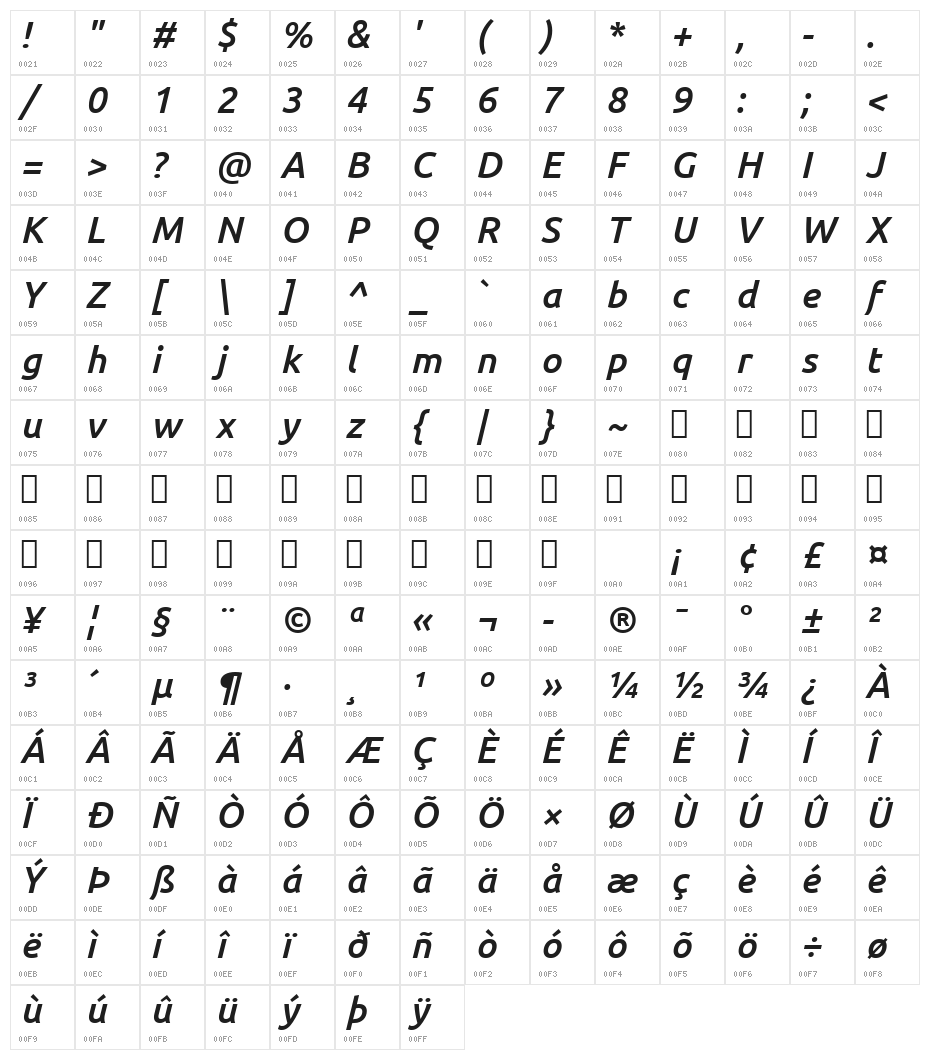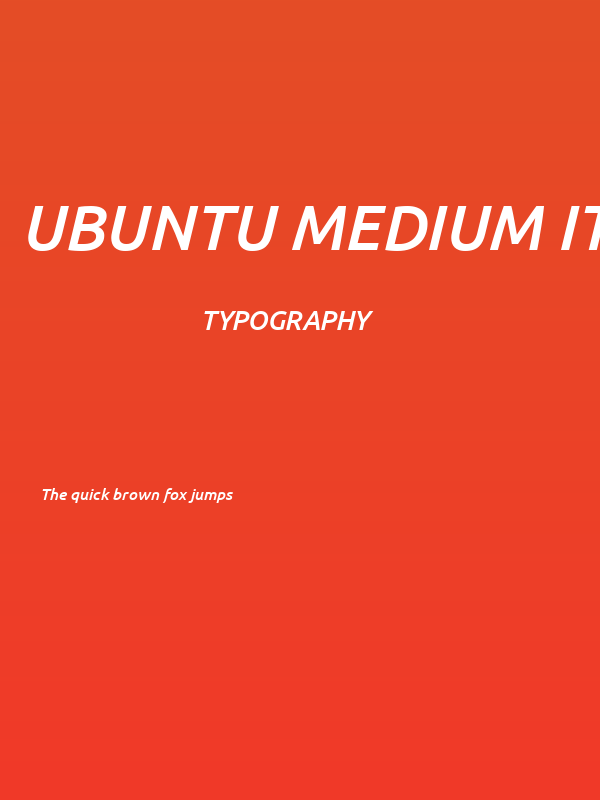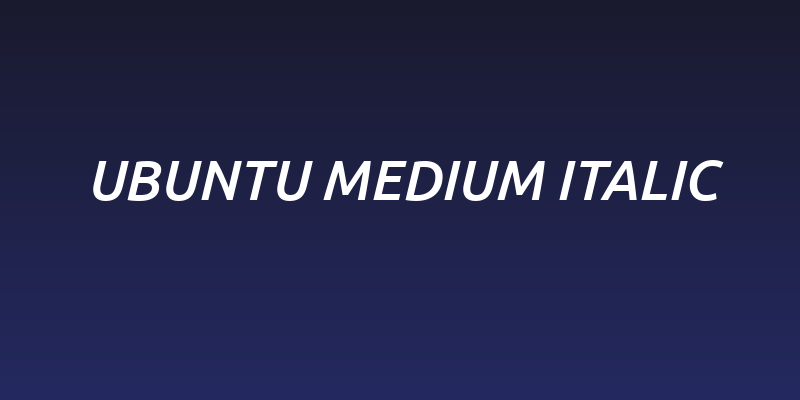
Ubuntu Medium Italic Font
Ubuntu Medium Italic Description
This font features a modern and clean design with a slight italic slant, giving it a dynamic and forward-moving appearance. The characters are well-proportioned with smooth curves and a consistent stroke width, contributing to its readability and versatility. The font maintains a harmonious balance between its geometric shapes and humanistic elements, making it suitable for a wide range of applications. Its medium weight provides a solid presence without being overwhelming, while the italic style adds a touch of elegance and sophistication. The character set includes a full range of uppercase and lowercase letters, numerals, and a variety of punctuation marks and special characters, ensuring comprehensive usability.
| Proposed Projects | Ideal for branding, editorial design, websites, and user interfaces where a modern and approachable look is desired. |